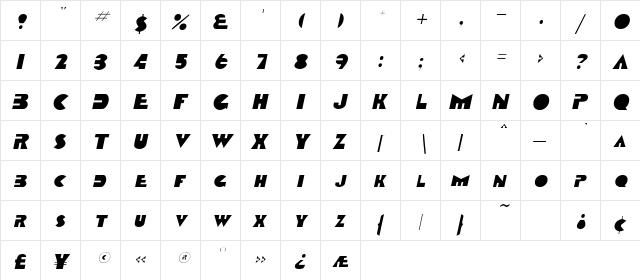
TobagoSCapsSSK Italic Font Preview
TobagoSCapsSSK Italic
Design Context for TobagoSCapsSSK Typeface
TobagoSCapsSSK is a composed and adaptable typeface that performs quietly and consistently across a wide range of design contexts. The slanted form adds forward momentum and visual energy.
Pro Tip: Use TobagoSCapsSSK for emphasis, pull quotes, and subheadings where its slanted energy can add rhythm to the layout.